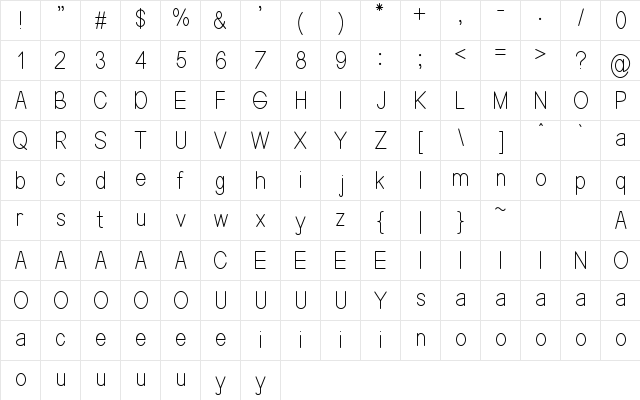
NENNAS Regular
Design Context for NENNAS Typeface
NENNAS is a composed and adaptable typeface that performs quietly and consistently across a wide range of design contexts.